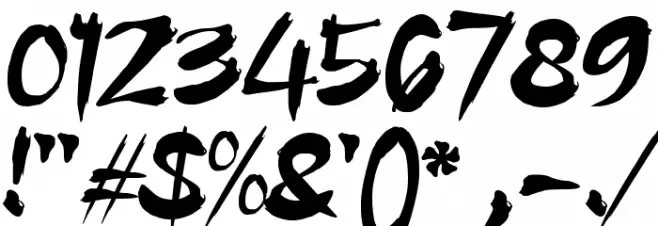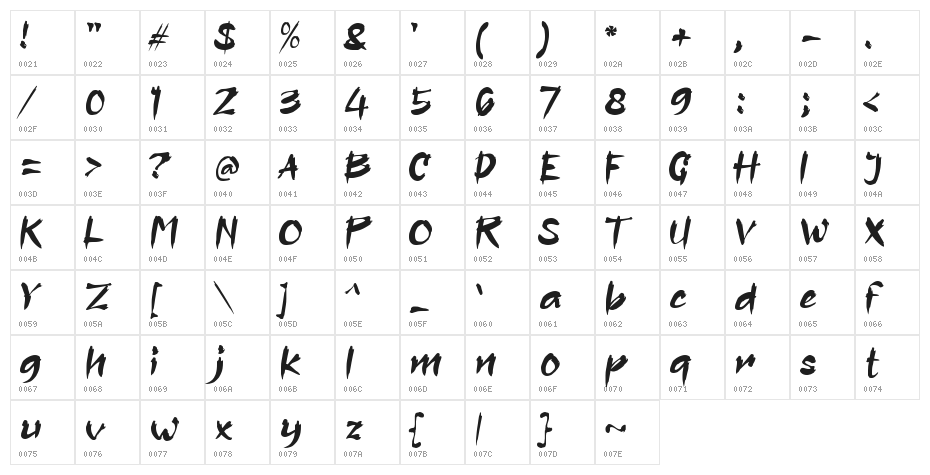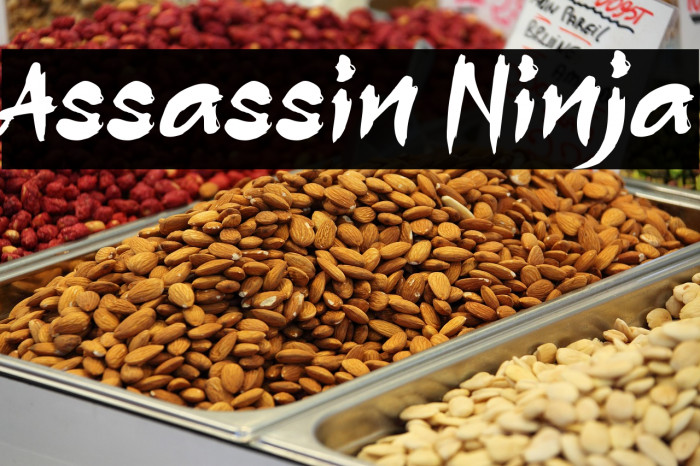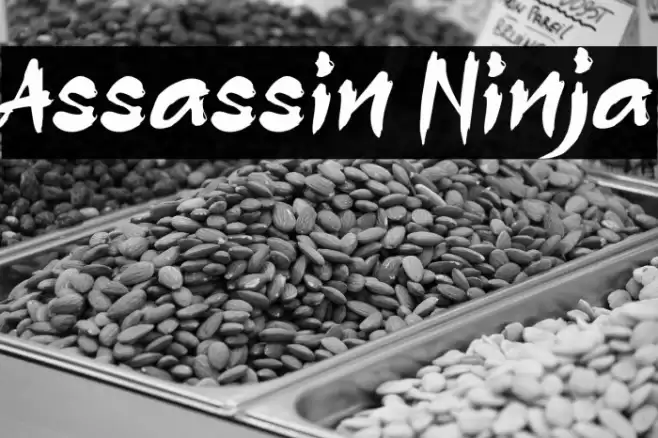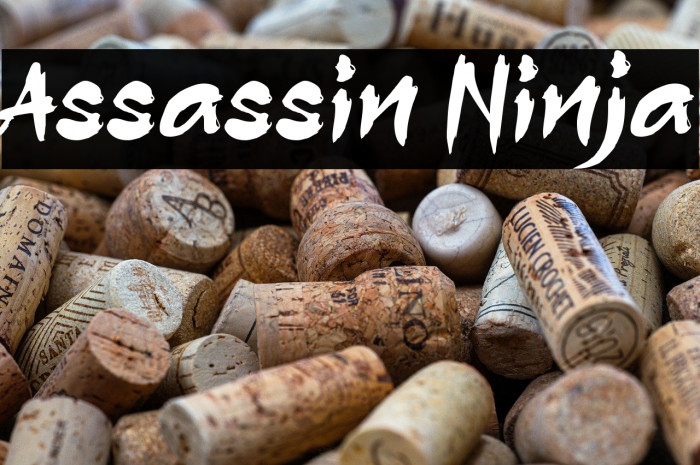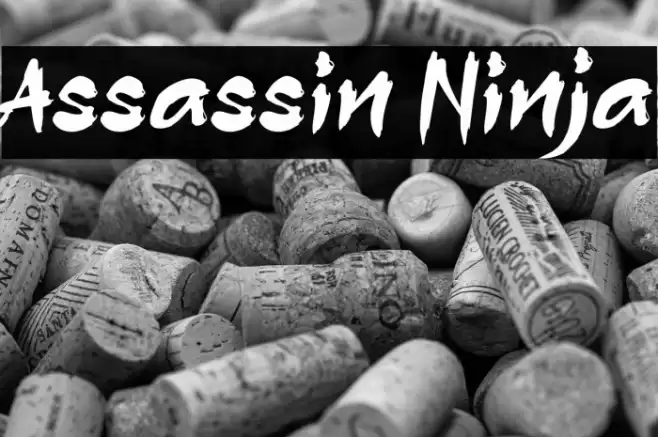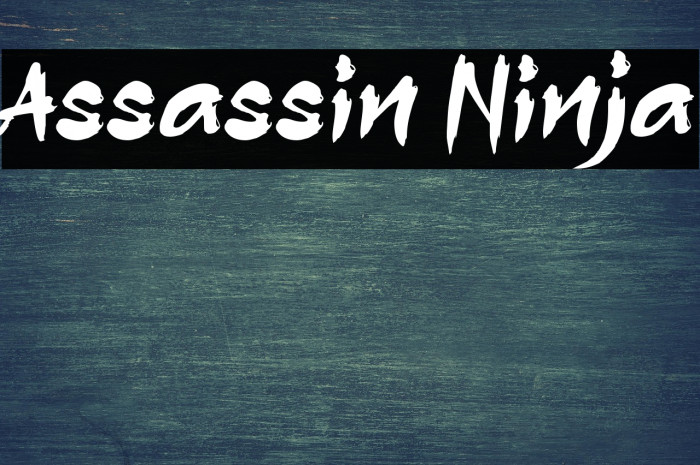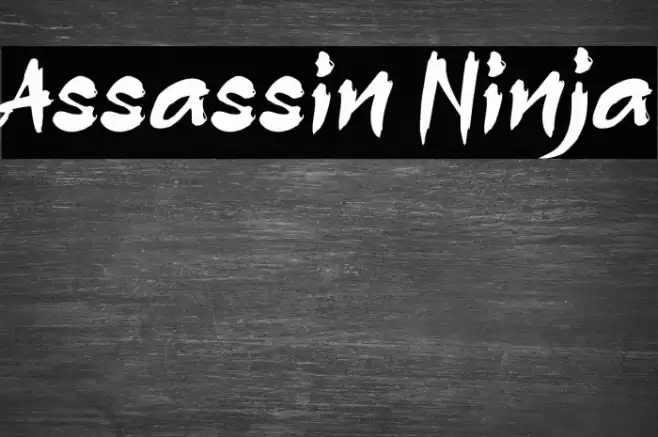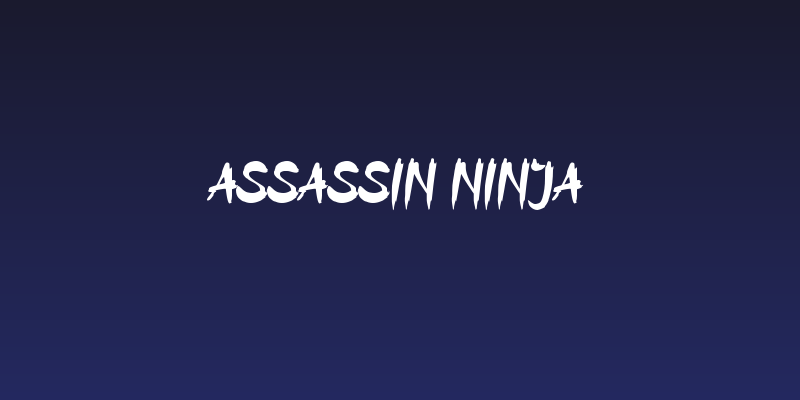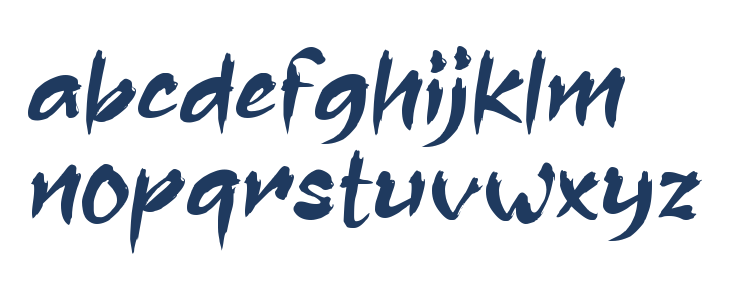
Assassin Ninja Font
Assassin Ninja Description
This font features a bold, dynamic brush style that exudes energy and movement. The strokes are thick and expressive, with a hand-painted appearance that gives it a raw, artistic feel. The uppercase letters are bold and commanding, while the lowercase letters maintain a consistent flow, adding to the overall fluidity of the design. Numbers and special characters are crafted with the same attention to detail, ensuring a cohesive look across all elements. The font's high contrast in stroke thickness enhances its dramatic impact, making it ideal for eye-catching designs.
| Proposed Projects | Perfect for projects that require a bold statement, such as posters, album covers, or branding for creative industries. |